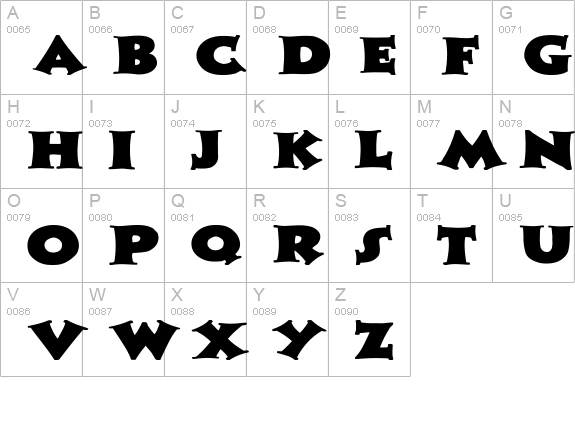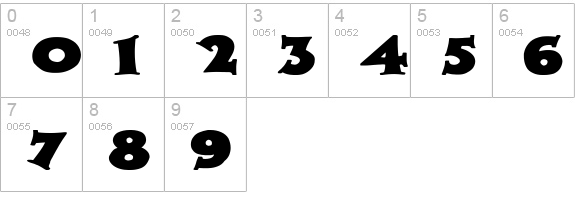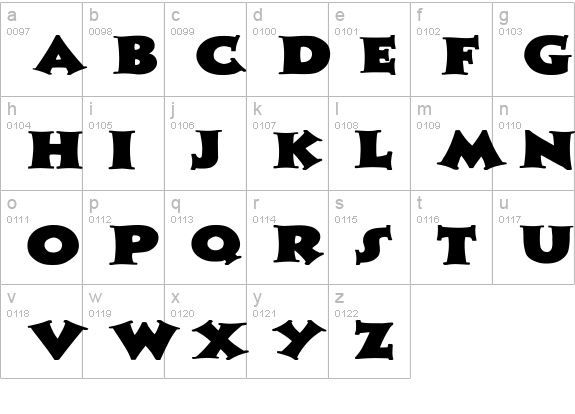
Zaleski Wd Bold Font Details
Zaleski Wd Bold is a strong, high-contrast variant in the Zaleski typeface family \xE2\x80\x94 well suited to headlines, attention-grabbing titles, and strong calls-to-action.
Zaleski Wd Bold is a stunning and versatile font that exudes a sense of modern sophistication and elegance. With its bold and distinctive letterforms, this typeface is perfect for creating eye-catching designs that demand attention. Whether you're working on a logo, branding materials, or any other creative project, Zaleski Wd Bold will surely make a statement. The best part? Zaleski Wd Bold is completely free to download at FontsMarket.com. This means you can easily access this high-quality font and incorporate it into your designs without any cost. Don't miss out on the opportunity to elevate your projects with the striking beauty of Zaleski Wd Bold. Download it today and let your creativity shine!